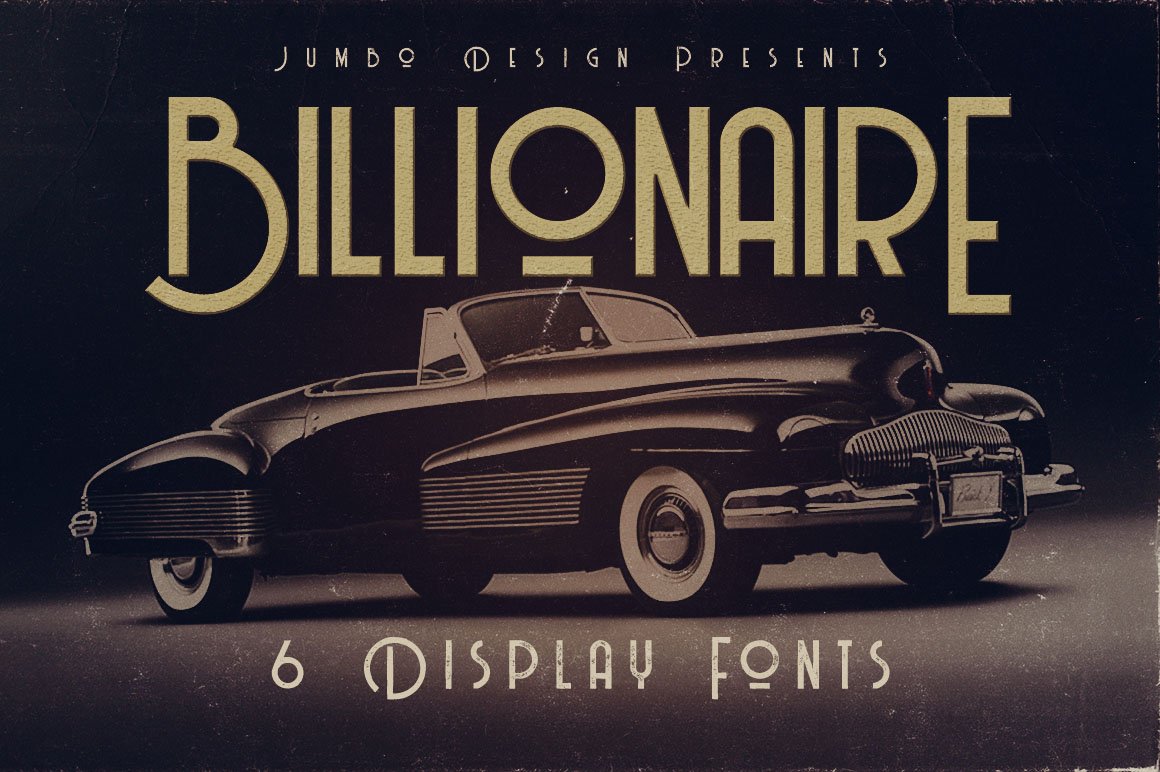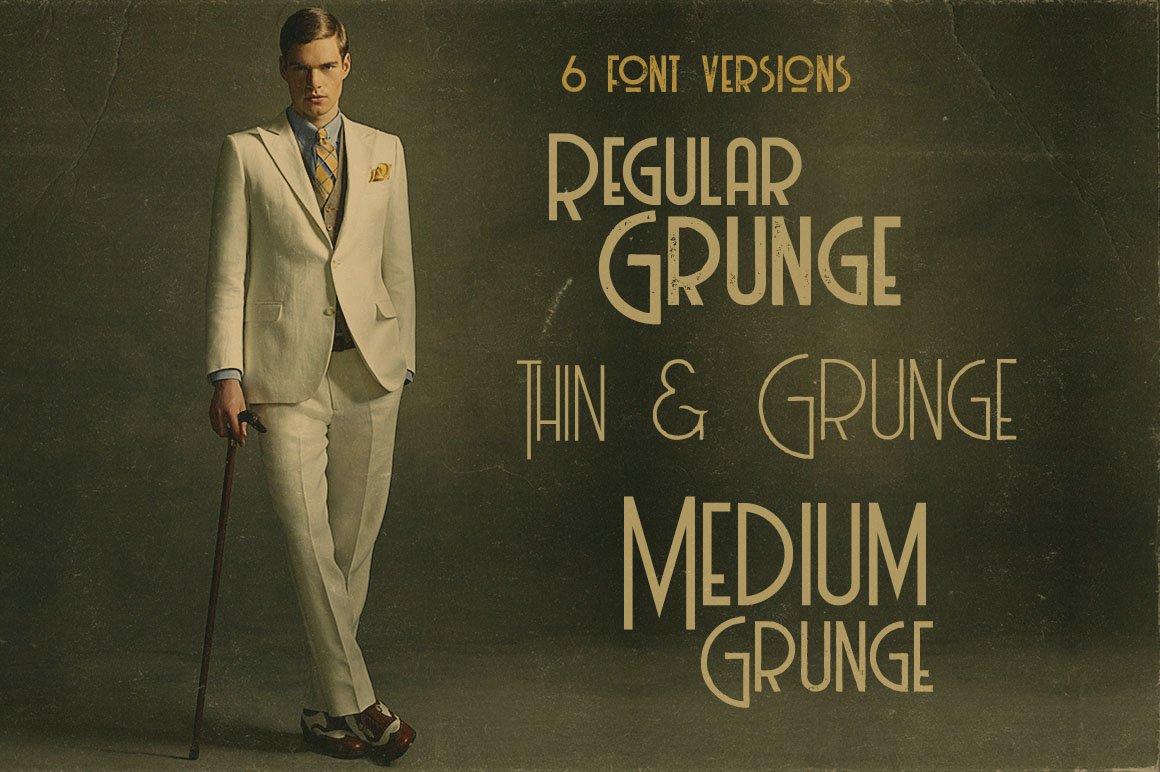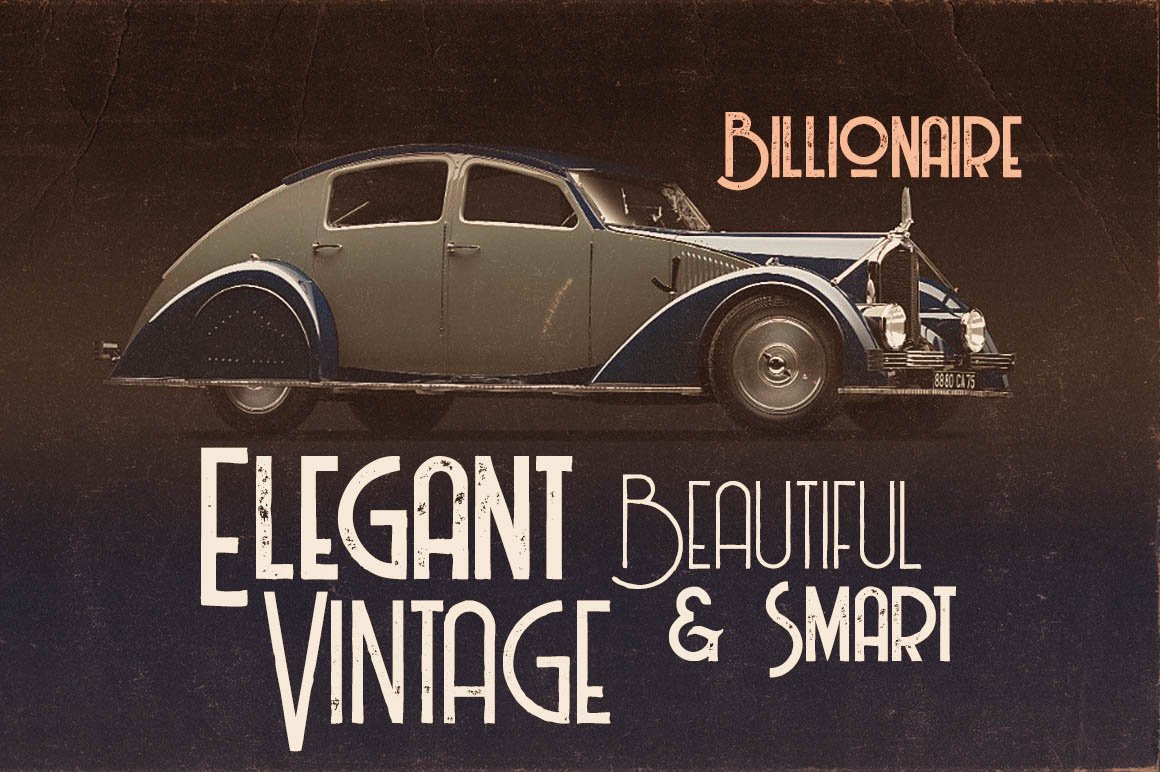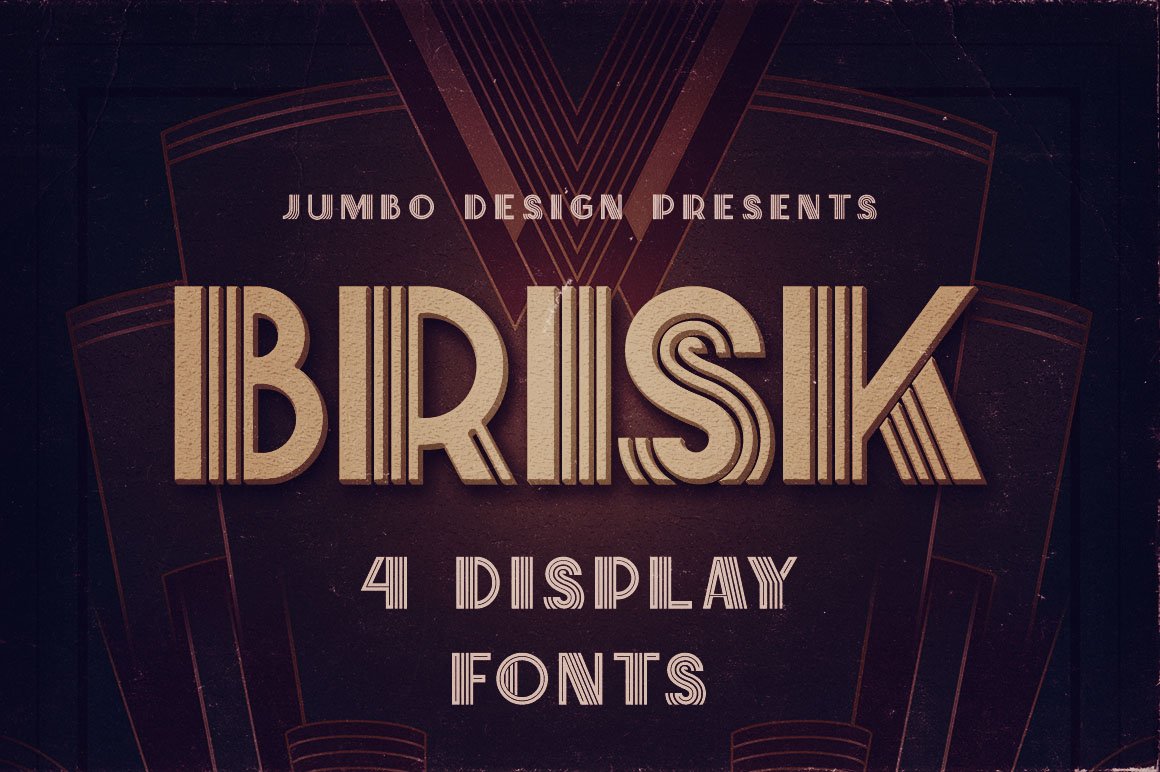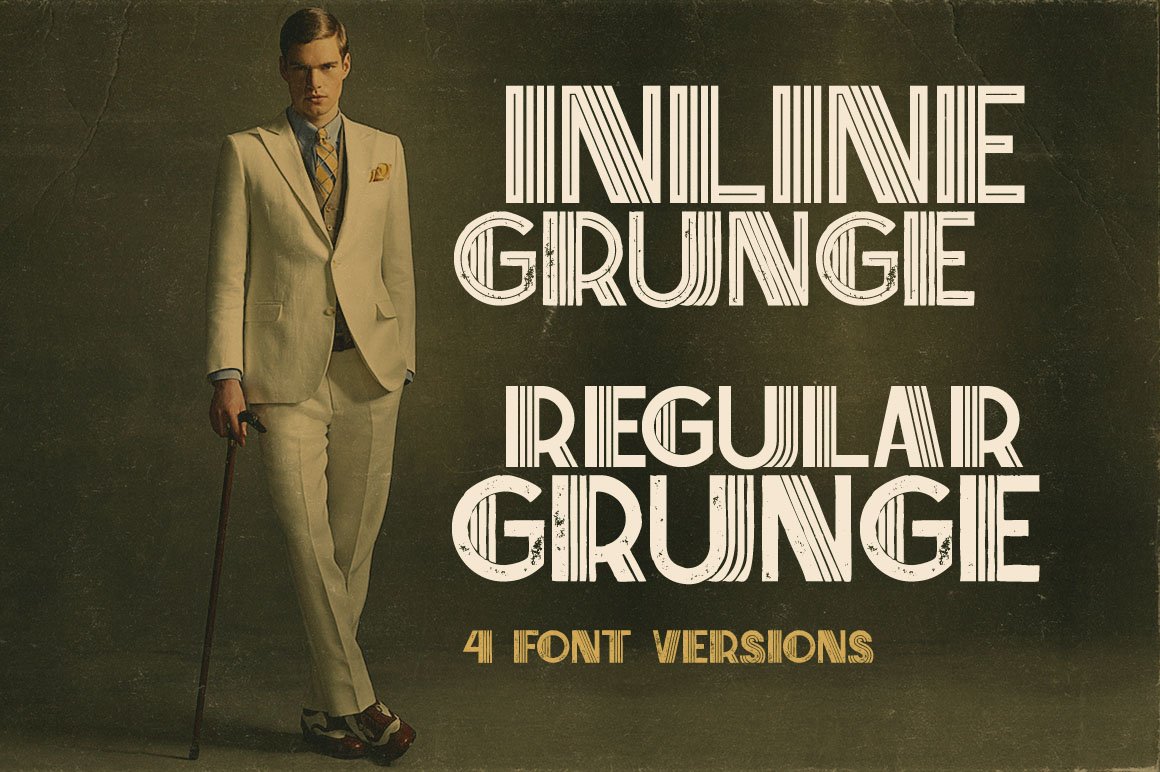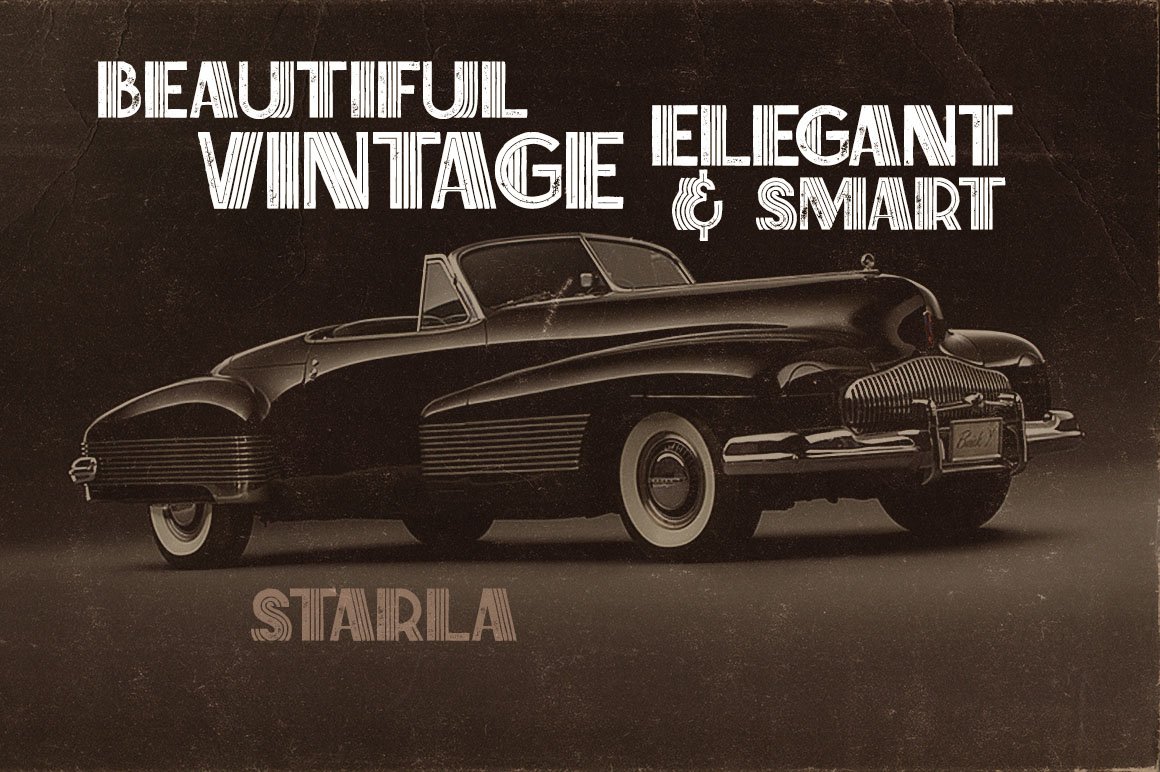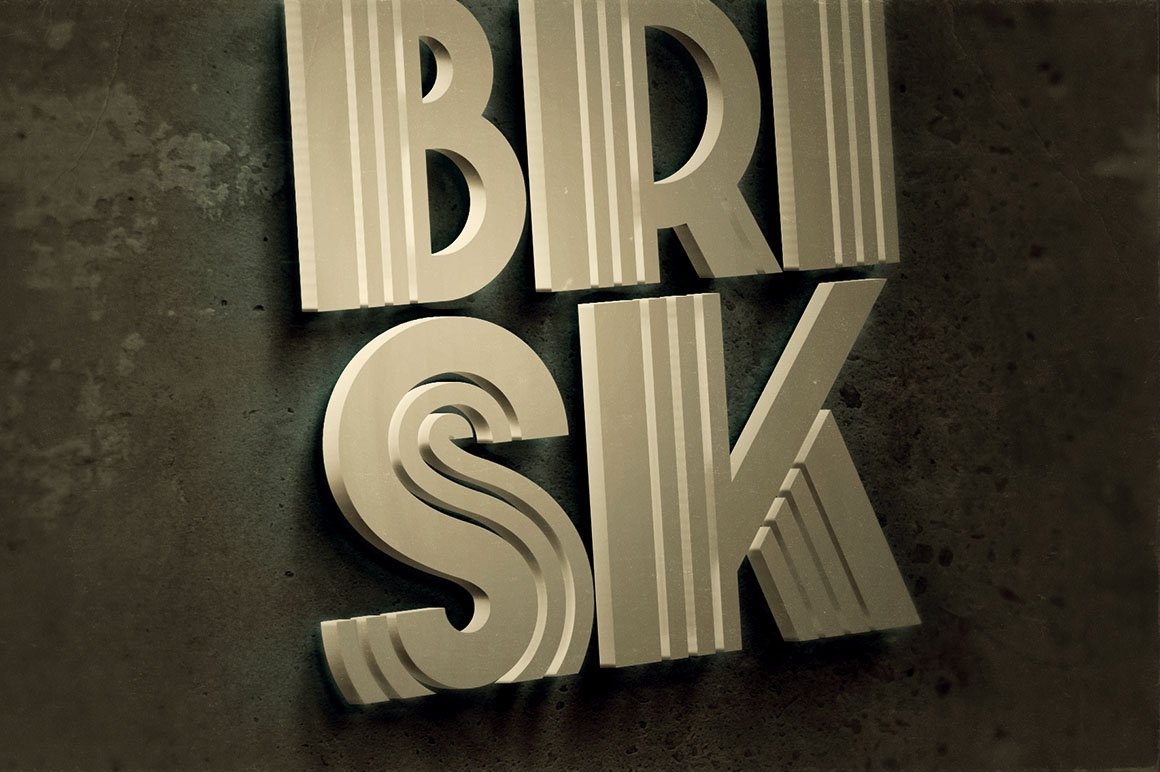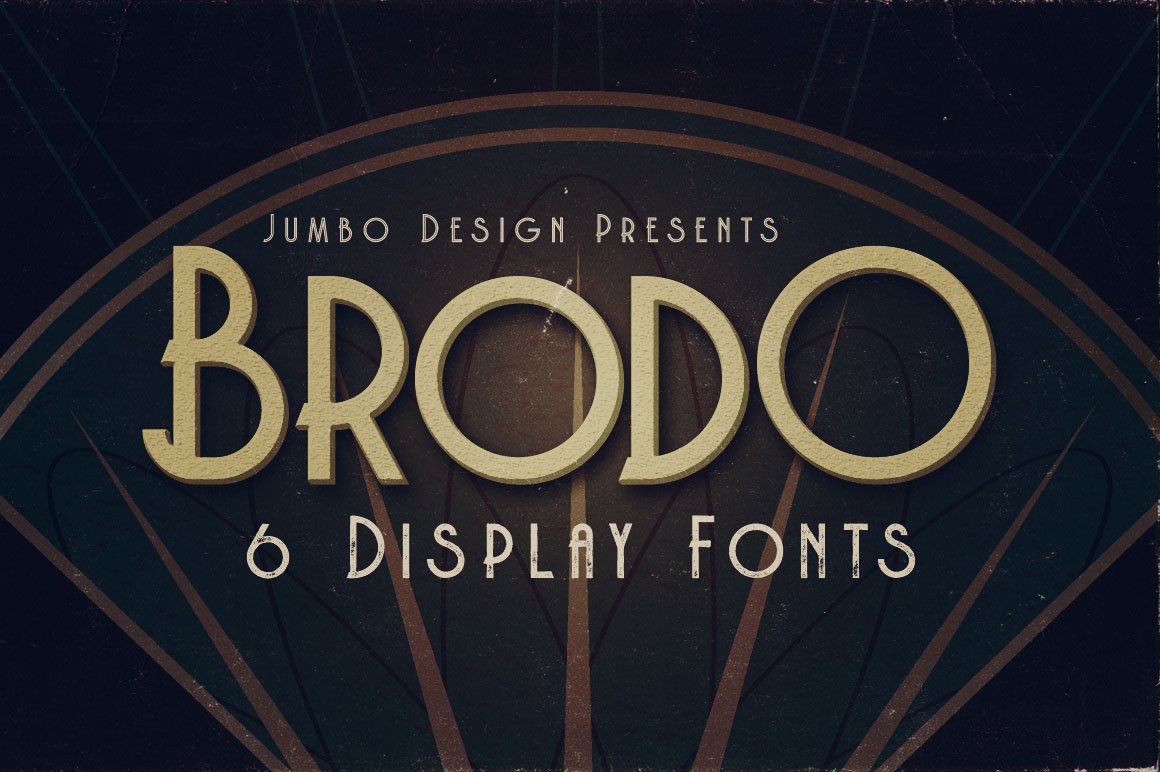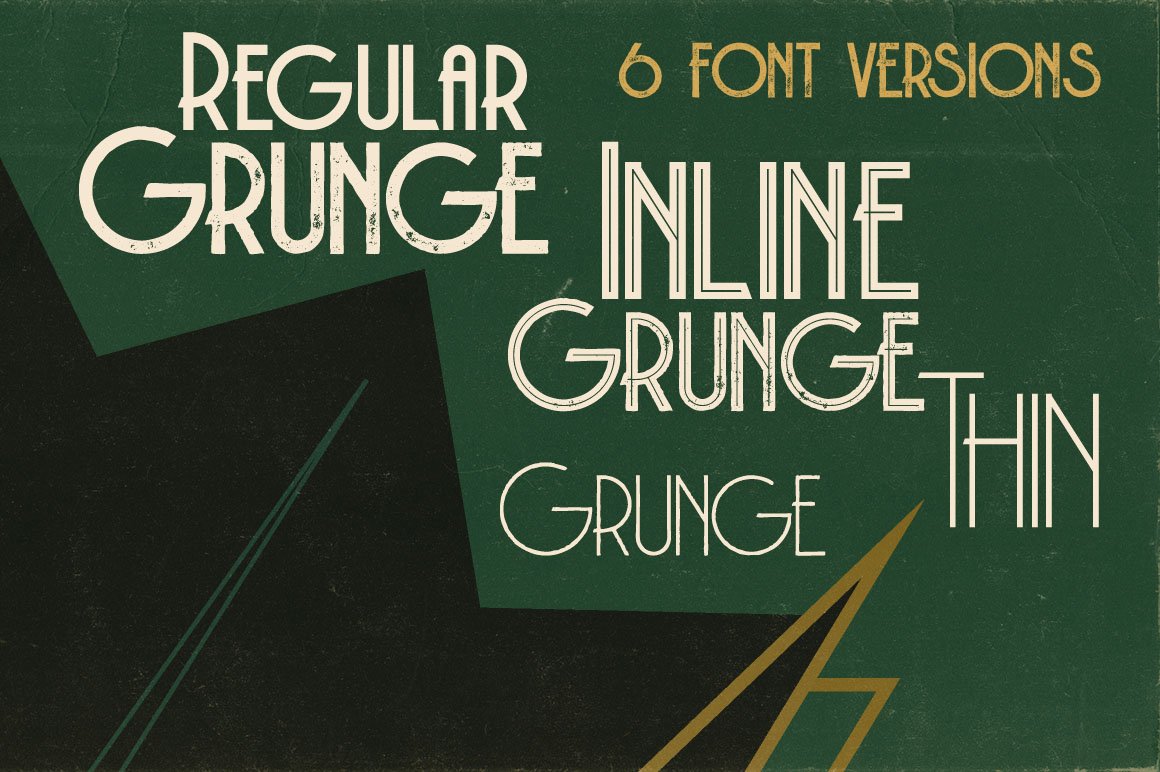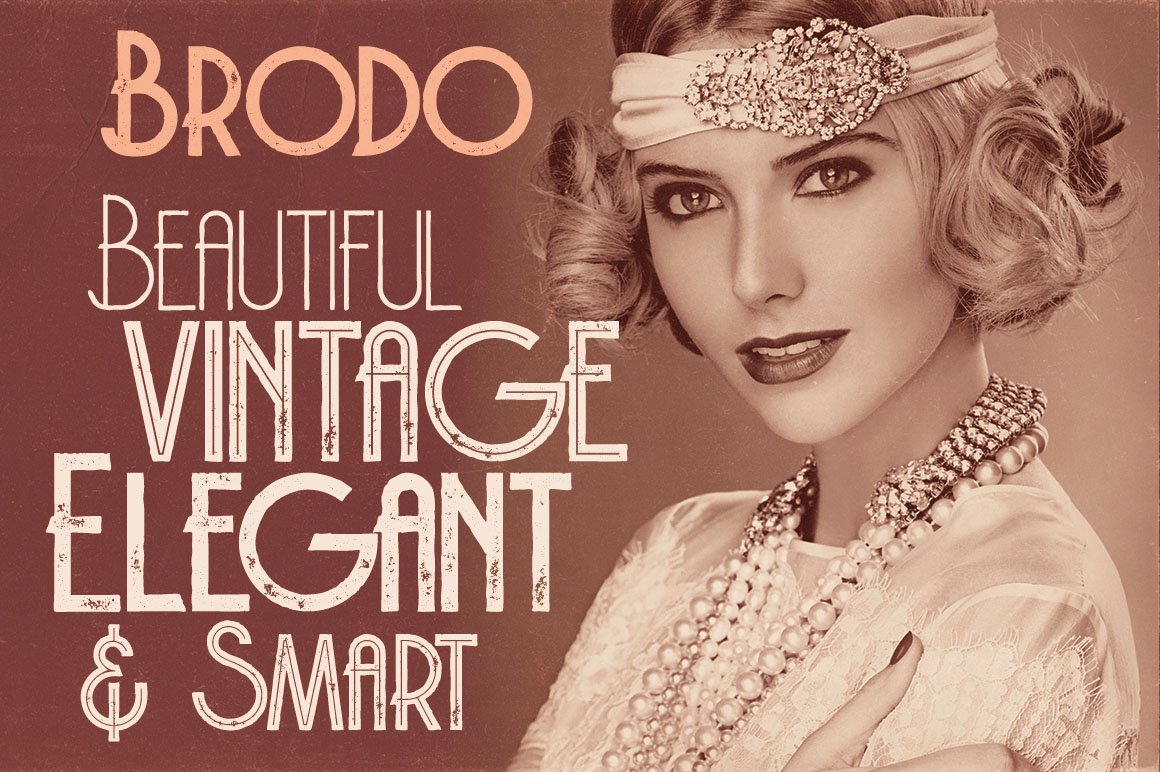
Art Deco Toolkit
Brand new vintage branding style typography & graphics bundle with 6 display font families, 4 bitmap graphics sets, 4 3D lettering sets & 5 vector frame sets! All these fonts & graphics are decorative & unique so you can use it for any retro of modern branding projects or T-shirt designs ;)
All these cool fonts & graphics from Cruzine Design are ready for print or online use! You can adjust, resize, and customize these graphics with no lost pixels in Illustrator or Photoshop. Great for your logos, cards, posters, mugs, t-shirts and many more. You can create ArtDeco style graphics or texts without much effort ;)
- Art deco branding style typography & graphics bundle
ArtDeco or vintage, decorative branding style typography & graphics bundle!
Great for your logos, cards, posters, mugs, t-shirts and many more. You can create ArtDeco style graphics or texts without much effort ;)
6 display font families
4 3D lettering sets